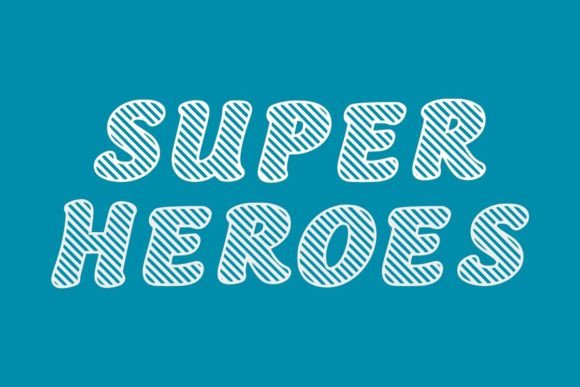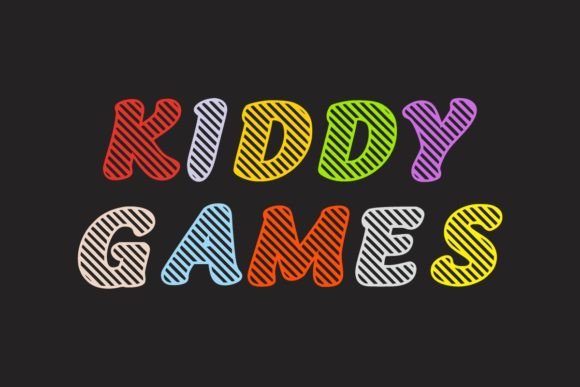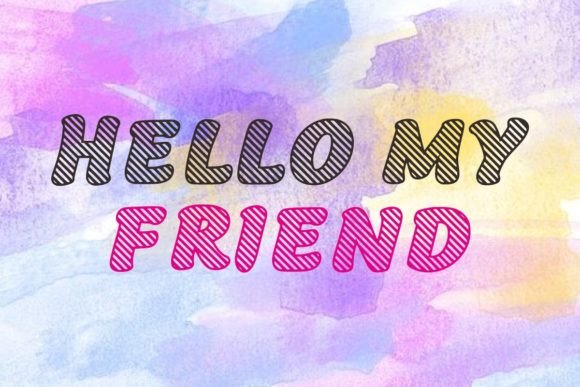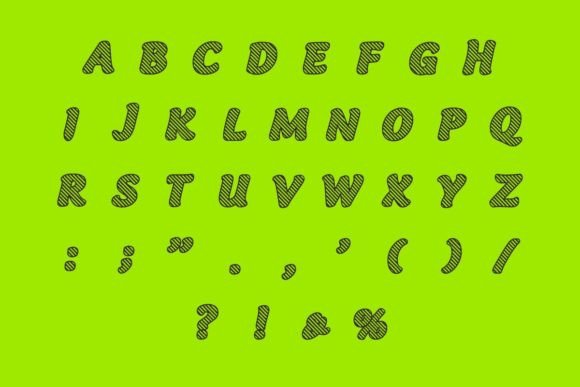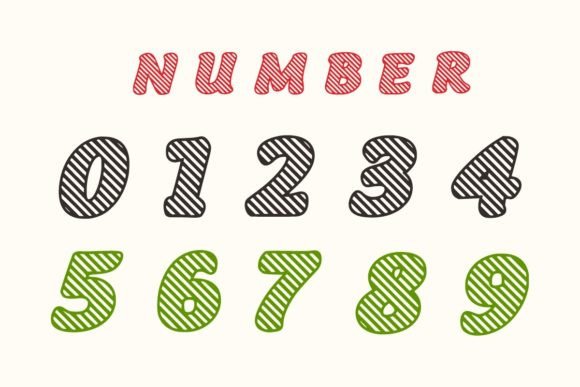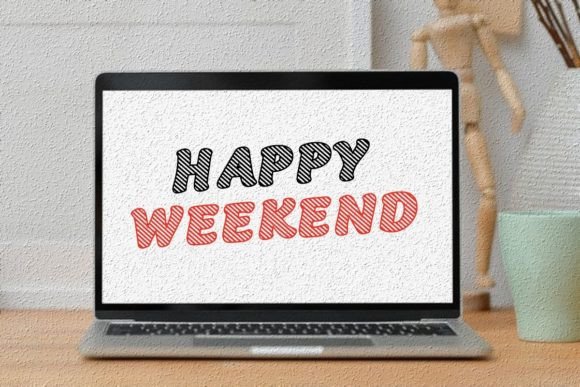
Baby Blues Font: The Ultimate Display Font for Friendly Designs
Are you looking for a font that exudes friendliness and playfulness? Look no further than the Baby Blues Font! This childish, bold-line, easy-to-read display font is perfect for a variety of design projects, from crafts and book covers to digital designs, presentations, and greeting cards. In this article, we’ll dive into the features and benefits of the Baby Blues Font and explore how it can become your go-to font for all your design needs.
What is Baby Blues Font?
Baby Blues Font is a display font designed to convey impeccable friendliness. Its bold lines and childish charm make it perfect for designs that require a playful touch. The font is easy to read, even at smaller sizes, making it versatile for various applications. Whether you’re a designer, crafter, or DIY enthusiast, Baby Blues Font is an excellent addition to your font collection.
Key Features of Baby Blues Font
- Childish and Playful: Baby Blues Font has a youthful and energetic vibe that’s perfect for designs that require a friendly tone.
- Bold Lines: The font’s bold lines ensure that your text stands out, making it ideal for headings, titles, and emphasis.
- Easy to Read: Despite its bold design, Baby Blues Font remains easy to read, even at smaller sizes.
- Versatile: This font is suitable for a wide range of design projects, from digital designs to print materials.
Use Cases for Baby Blues Font
Baby Blues Font is an incredibly versatile font that can be used in various design projects. Here are some popular use cases:
- Crafts: Add a playful touch to your craft projects, such as DIY signs, cards, and scrapbooking.
- Book Covers: Use Baby Blues Font to create eye-catching book covers that appeal to a younger audience.
- Digital Designs: Incorporate this font into your digital designs, such as social media graphics, blog posts, and website headers.
- Presentations: Add a friendly and approachable tone to your presentations with Baby Blues Font.
- Greeting Cards: Create personalized greeting cards with a playful and cheerful font.
Why Choose Baby Blues Font?
With so many fonts available, why choose Baby Blues Font? Here are a few reasons why this font stands out:
- Unique Style: Baby Blues Font has a distinct style that’s both childish and sophisticated.
- Ease of Use: The font is easy to read and works well in various design contexts.
- Friendliness: The font’s friendly tone makes it perfect for designs that require a approachable and welcoming vibe.
Tips for Using Baby Blues Font
To get the most out of Baby Blues Font, here are some tips to keep in mind:
- Pair with Other Fonts: Combine Baby Blues Font with other fonts to create a unique and visually appealing design.
- Experiment with Colors: Try out different colors to find the perfect match for your design.
- Use for Headings: Use Baby Blues Font for headings and titles to add emphasis and create visual hierarchy.
In conclusion, Baby Blues Font is an excellent choice for designers and crafters looking for a friendly and playful display font. Its bold lines, childish charm, and ease of use make it perfect for a variety of design projects. Whether you’re creating crafts, book covers, digital designs, presentations, or greeting cards, Baby Blues Font is sure to become your go-to font. So why not give it a try and see how it can elevate your designs?